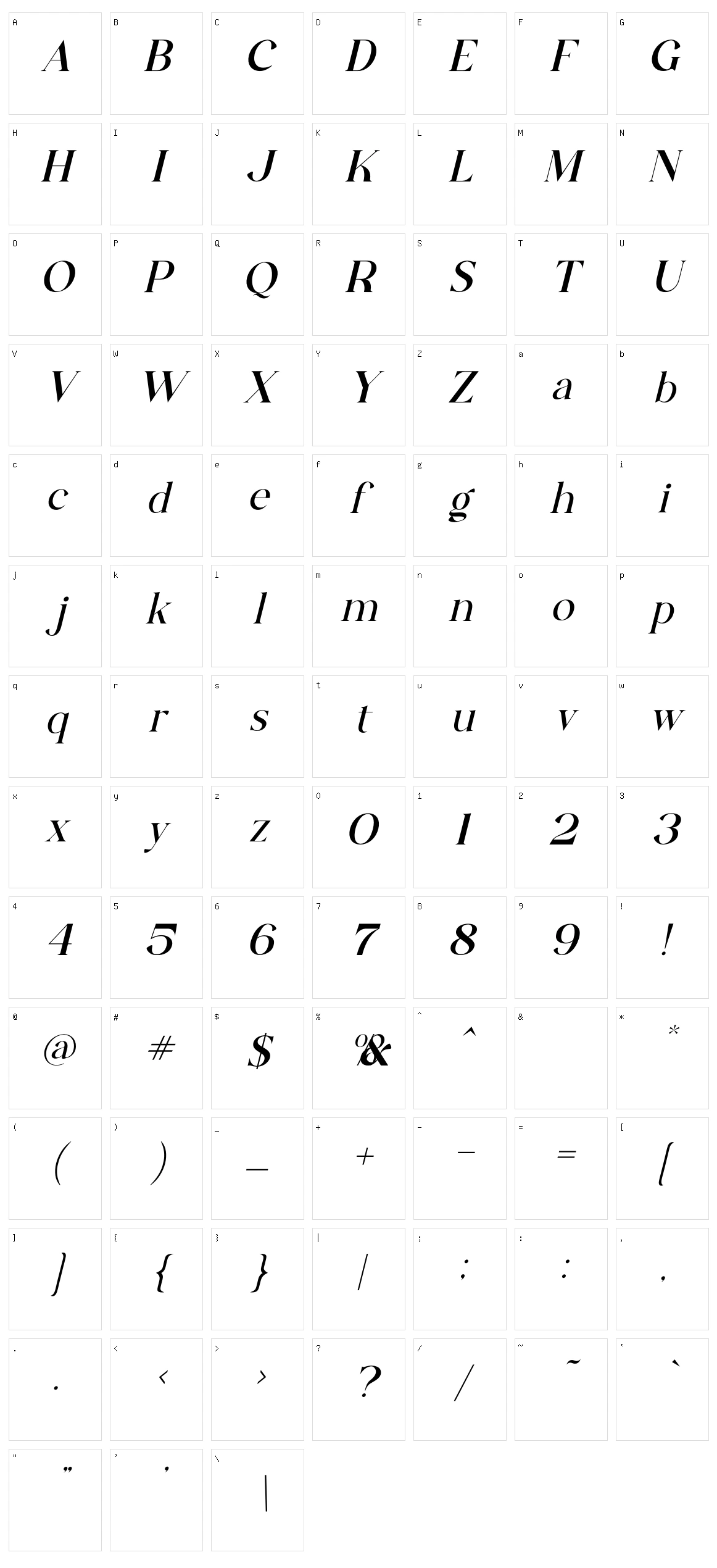
The free font The Castle Elizah is carefully designed by Letterena Studios, showcasing a thoughtful balance of creativity and usability and falls under the Serif font style. When you download the ZIP file, it contains only 381.02 KB of font files, making it lightweight and quick to download. Please review the license details below to understand permitted usage and distribution rights. If license information is not available, we recommend using this font for personal projects only or contacting the author directly for commercial usage permissions.